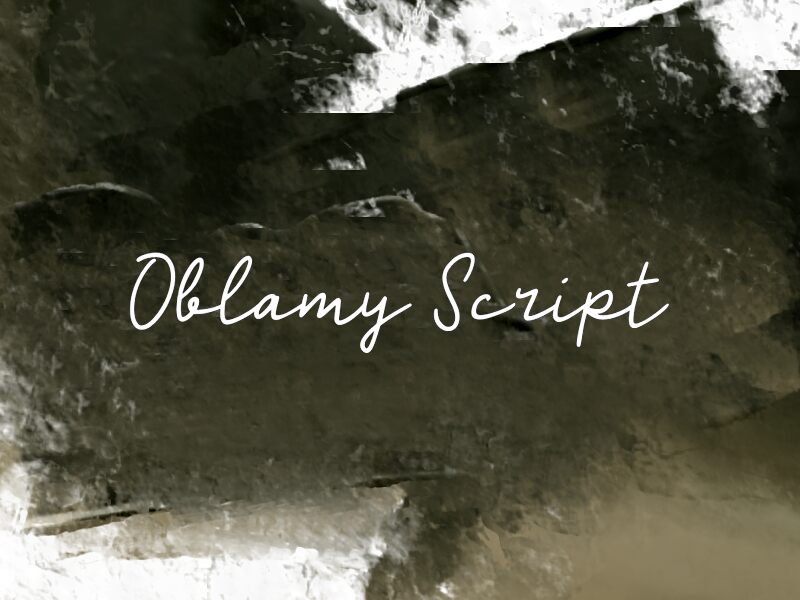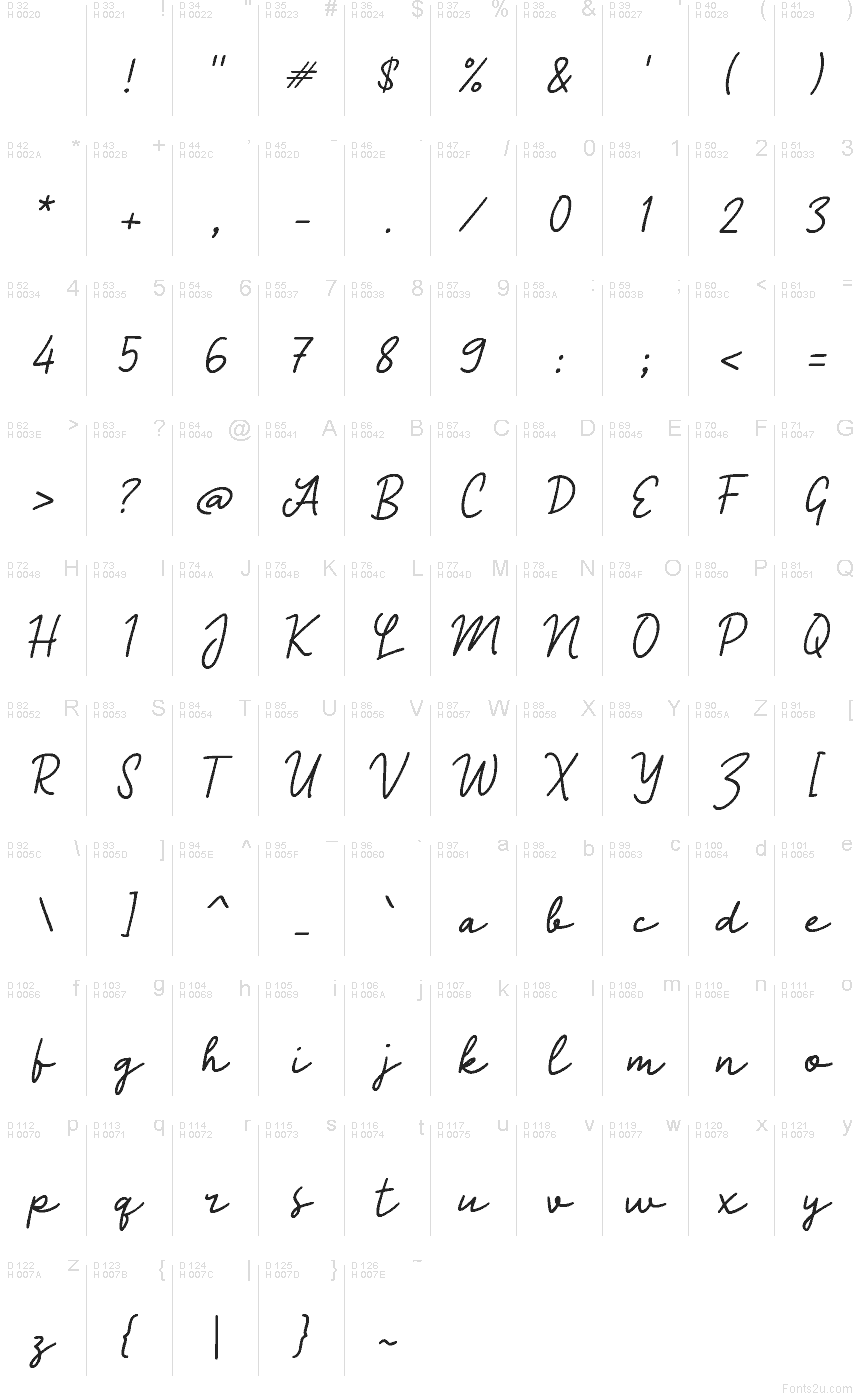
Oblamy Script
Oblamy Script font by wep is a free handwritten script typeface that captures the feel of quick, confident pen strokes without losing clarity. The letters have a gentle slant, airy spacing, and a smooth, inky line that feels like it was written in one relaxed sitting. It’s casual and friendly, but not messy—great when you need handwriting that looks genuinely human while still staying easy to read at smaller sizes.
Using Oblamy Script, you can give signatures, personal logos, social media graphics, packaging, photo captions, and invitations a warm, off-the-cuff voice. This free font shines on quotes and headings where you want an intimate, journal-like mood. Pair it with a clean sans serif for body text to keep layouts grounded, and let Oblamy Script handle the expressive, handwritten moments.